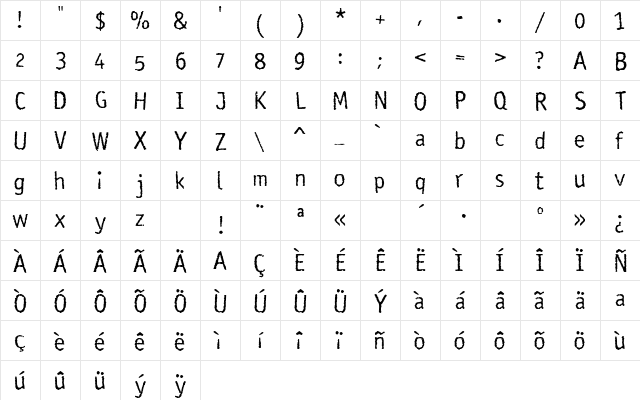
Rosango Normal
Design Context for Rosango Typeface
Rosango offers clean, dependable letterforms without strong stylistic allegiance, making it a practical choice for designers who need flexibility.